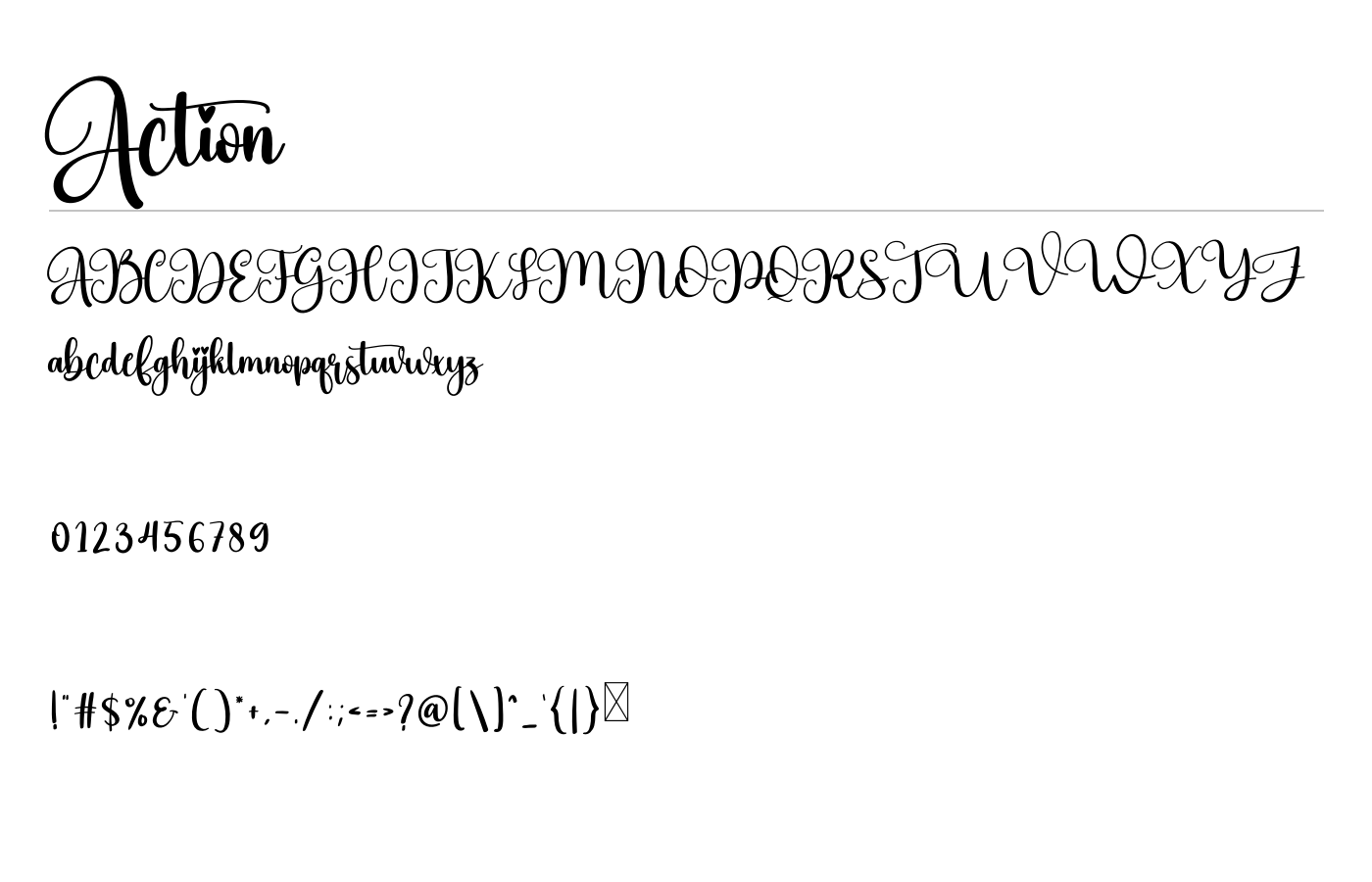
Action Font is a stylish script typeface with elegant, flowing strokes and a hand-lettered feel. It features high contrast between thick and thin lines, playful swashes, and decorative uppercase letters, making it perfect for feminine branding, invitations, and expressive headlines that need a personalized, artistic touch. This font adds charm and sophistication to any design requiring a warm, creative vibe.
Action Font